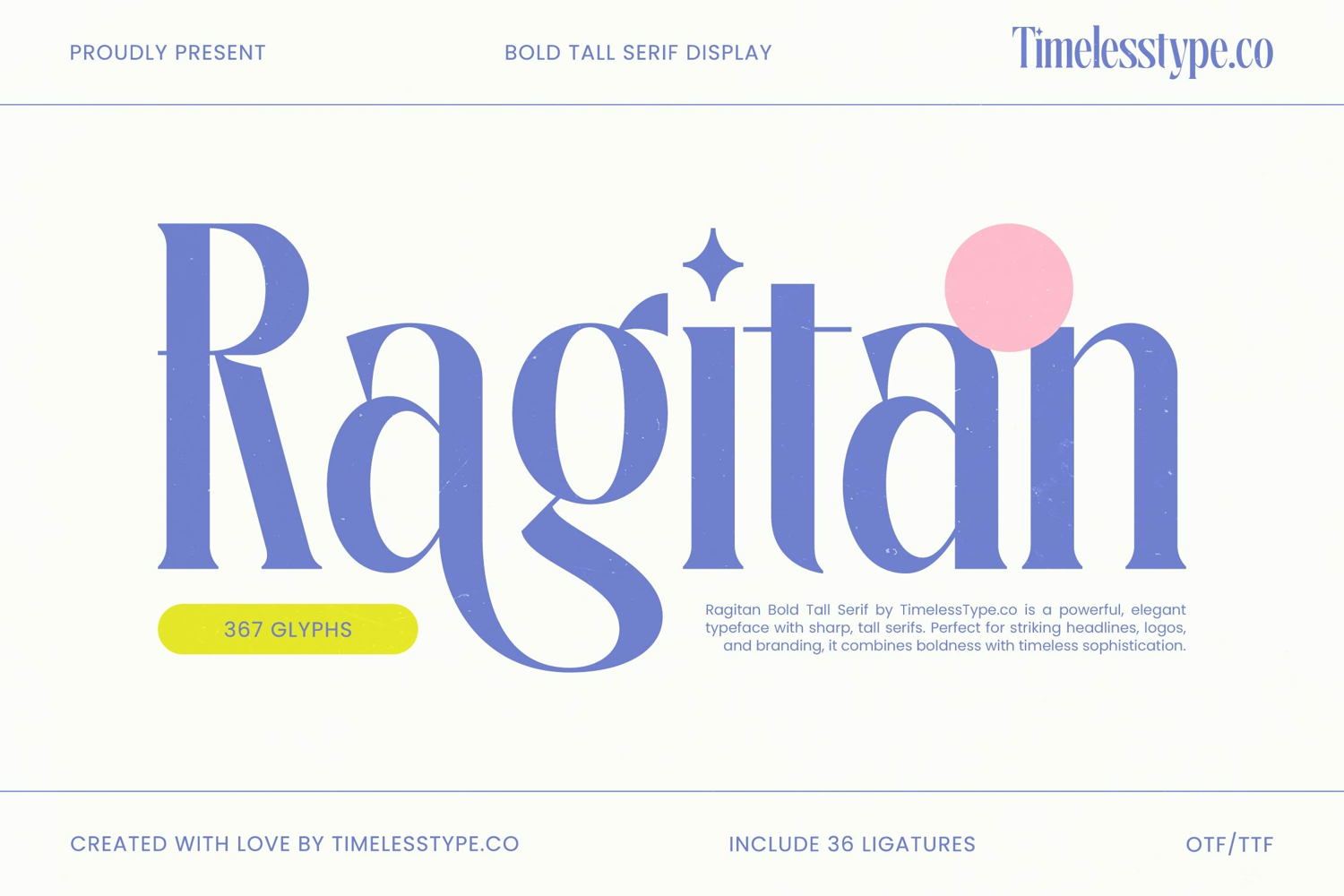
Ragitan - Bold Tall Serif Display
Ragitan Italic
Ragitan
Ragitan - Bold Tall Serif Display is engineered to demand attention with undeniable elegance. This compelling display typeface marries extreme verticality—achieved through its tall, confident serifs—with the sophisticated boldness of its strokes. The result is a highly expressive, high-contrast design that immediately conveys prestige and timeless sophistication, ensuring your headlines are not just read, but felt.